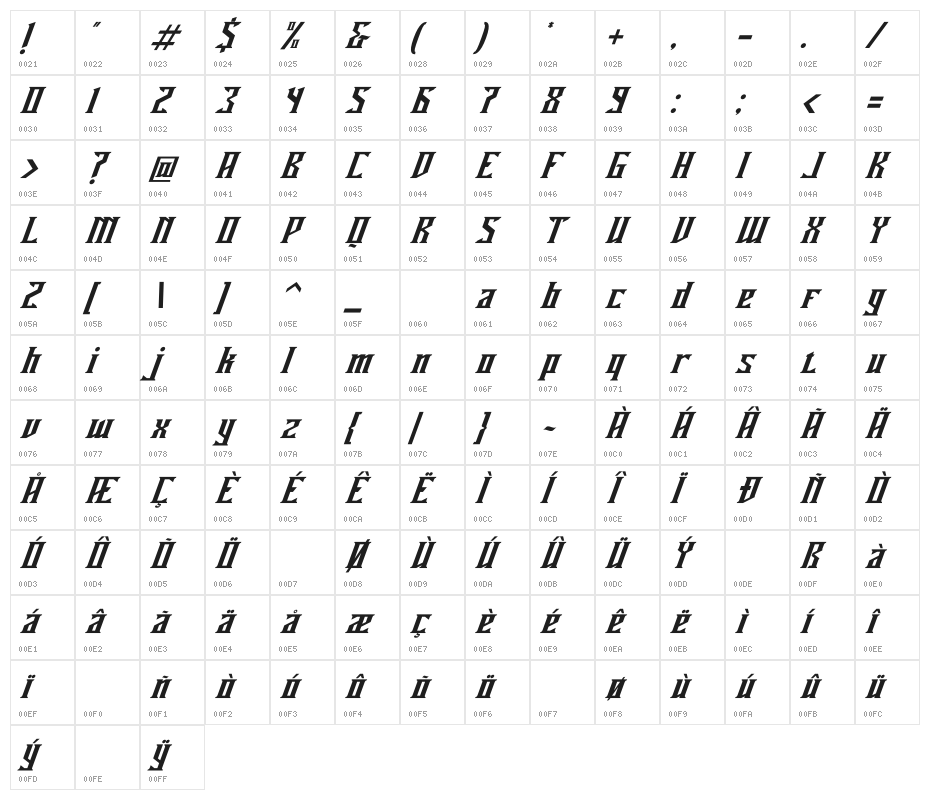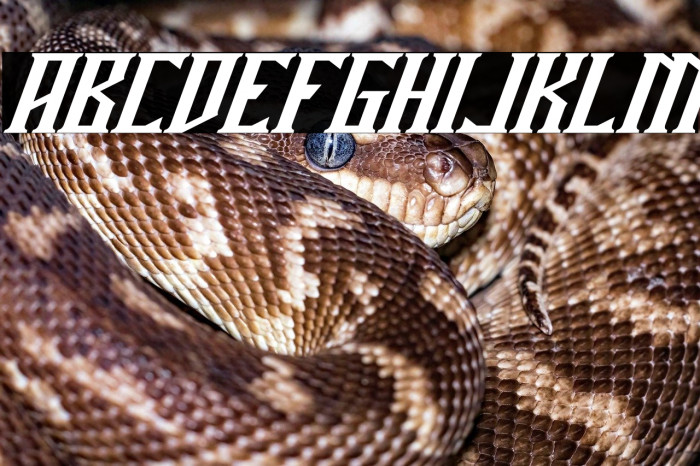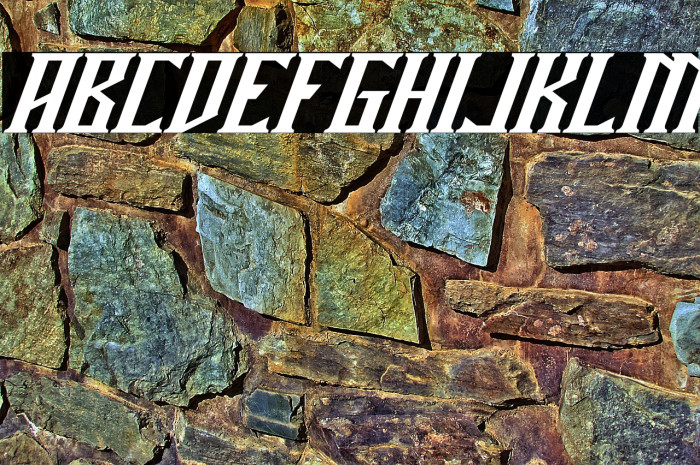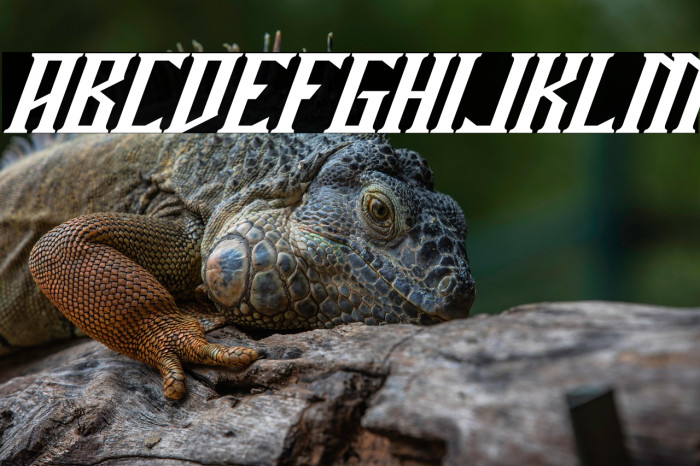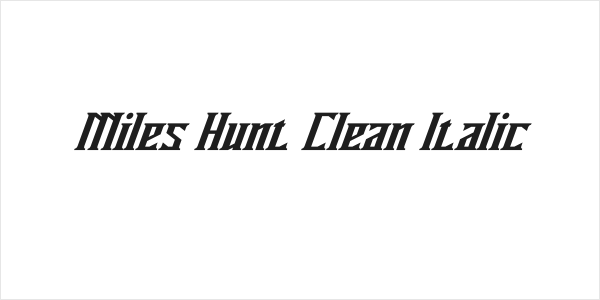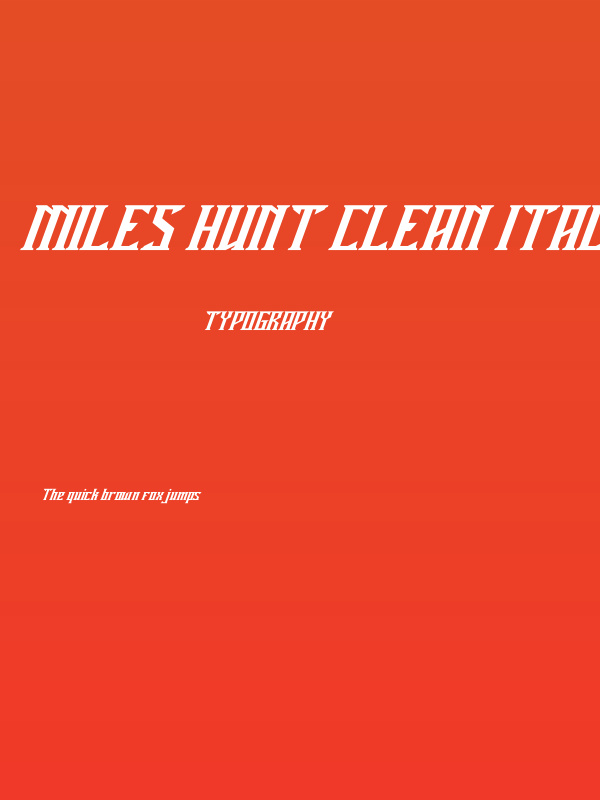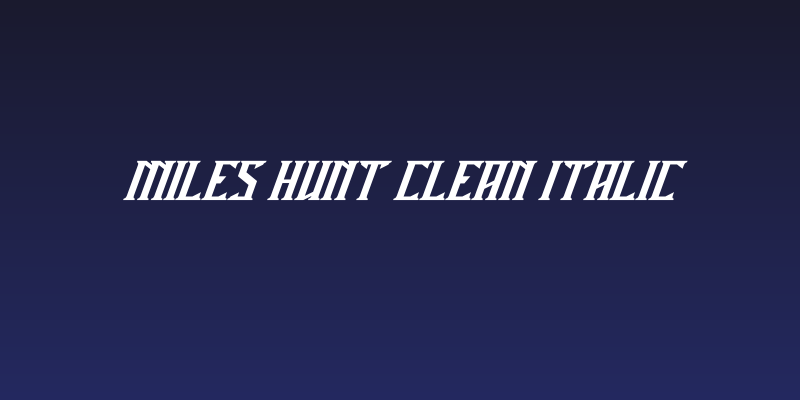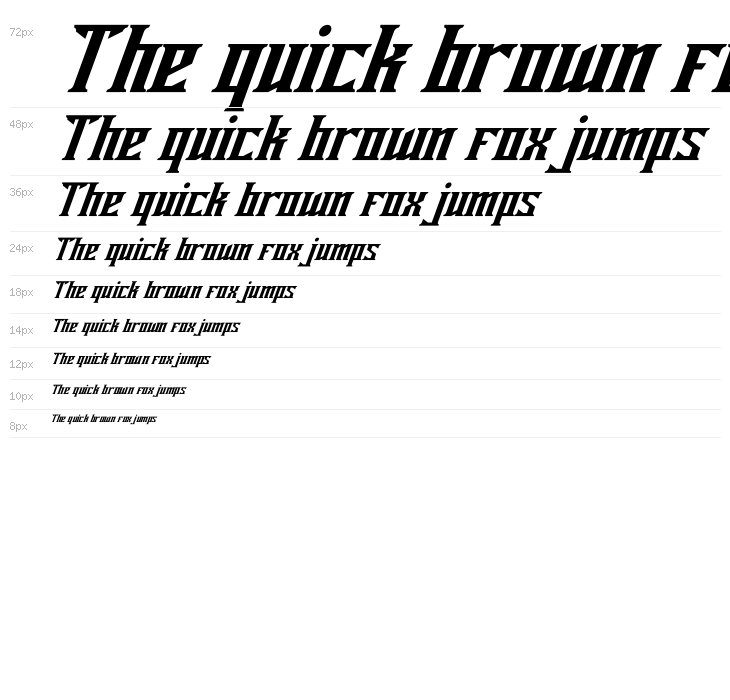
Miles Hunt Clean Italic Font
Miles Hunt Clean Italic Description
This font exhibits a bold and dynamic style with sharp, angular edges and a strong italic slant. The characters are designed with a distinct forward-leaning posture, giving a sense of movement and speed. The uppercase and lowercase letters maintain a consistent geometric structure, while the numerals and special characters complement the overall aesthetic. The strokes are thick and uniform, providing a robust and impactful appearance. This font is well-suited for projects that require a modern and edgy look, making it ideal for headlines, posters, and branding materials that aim to capture attention.
| Proposed Projects | Ideal for use in headlines, posters, branding, and any design requiring a modern, edgy look. |